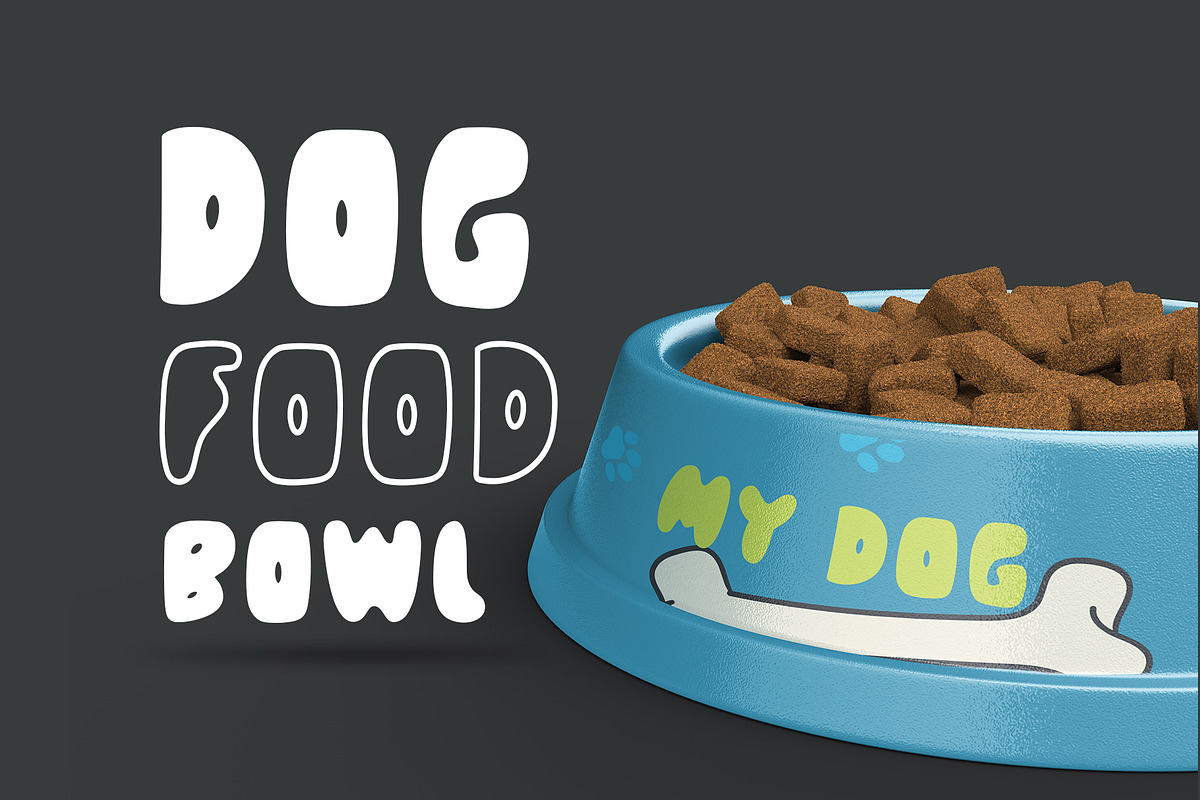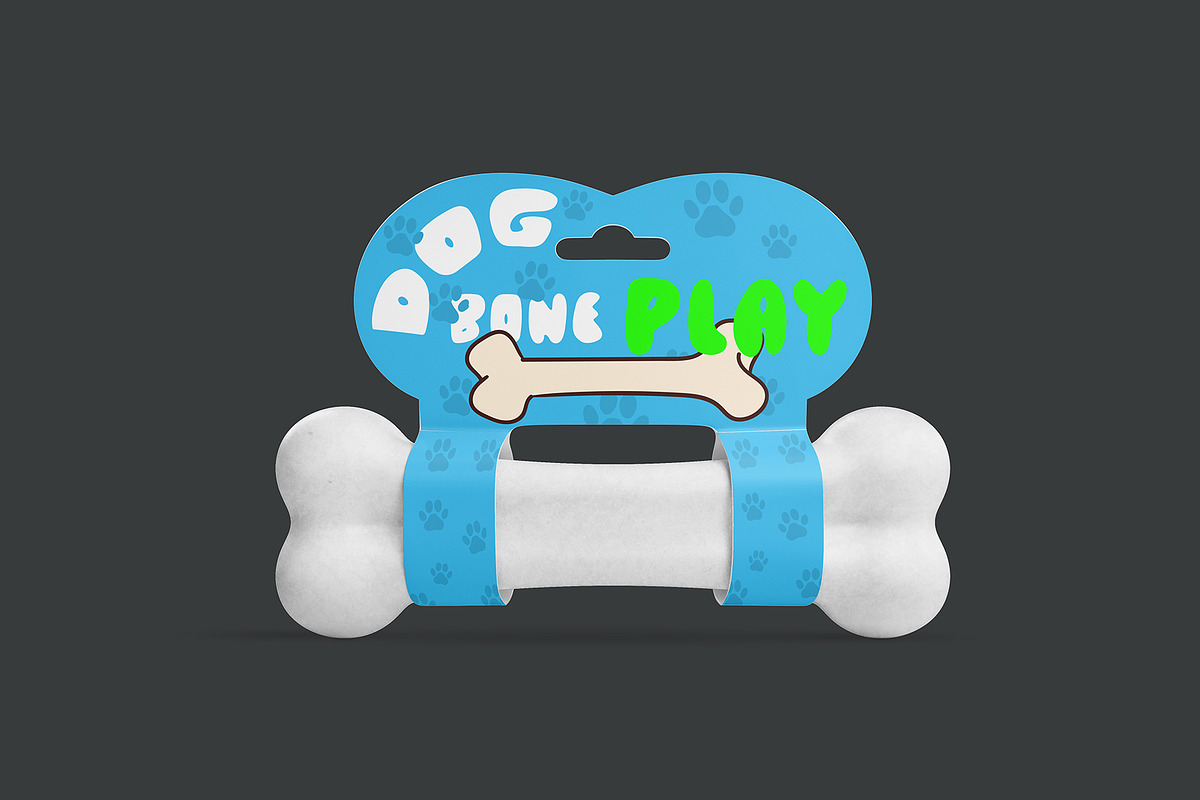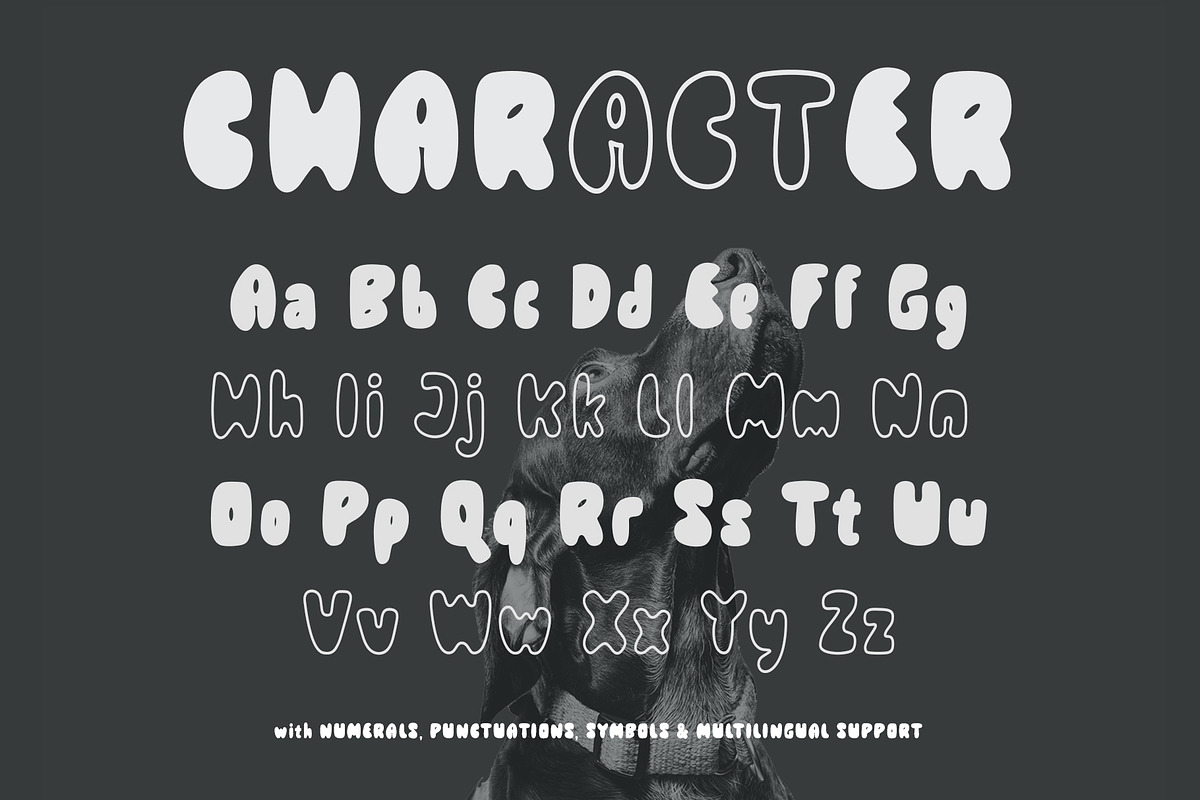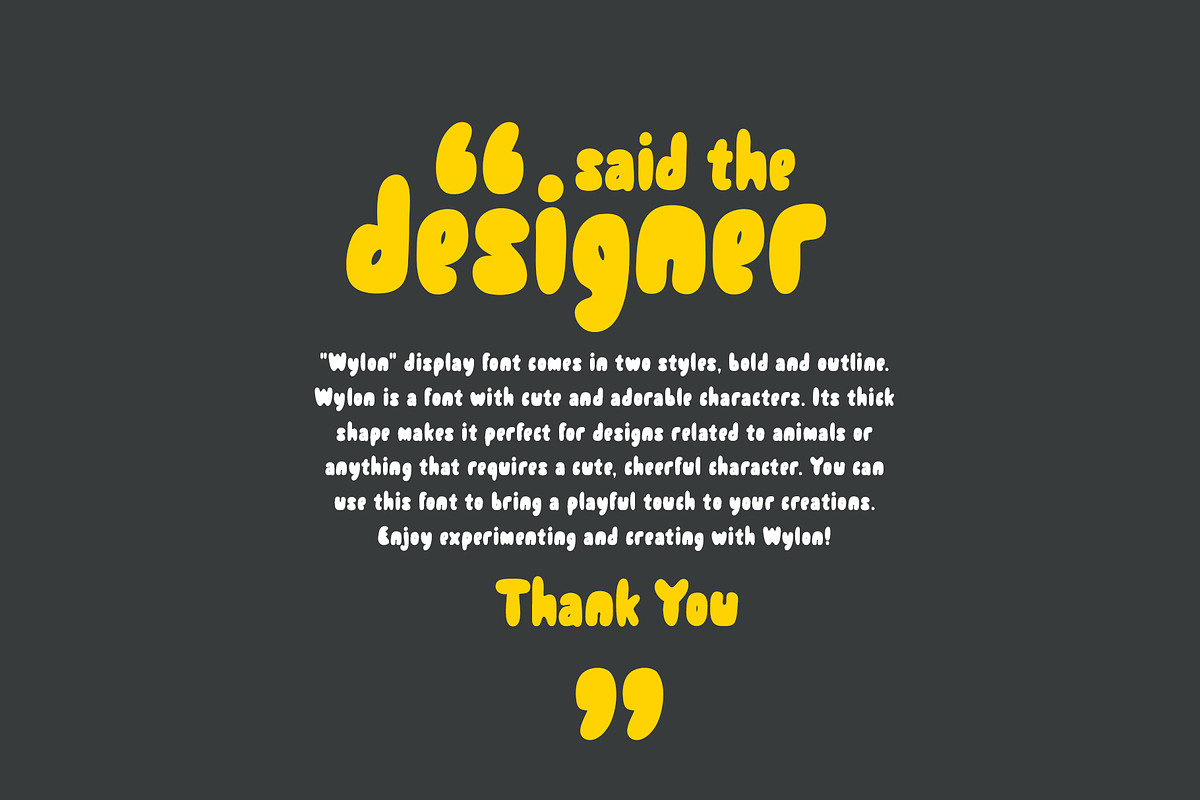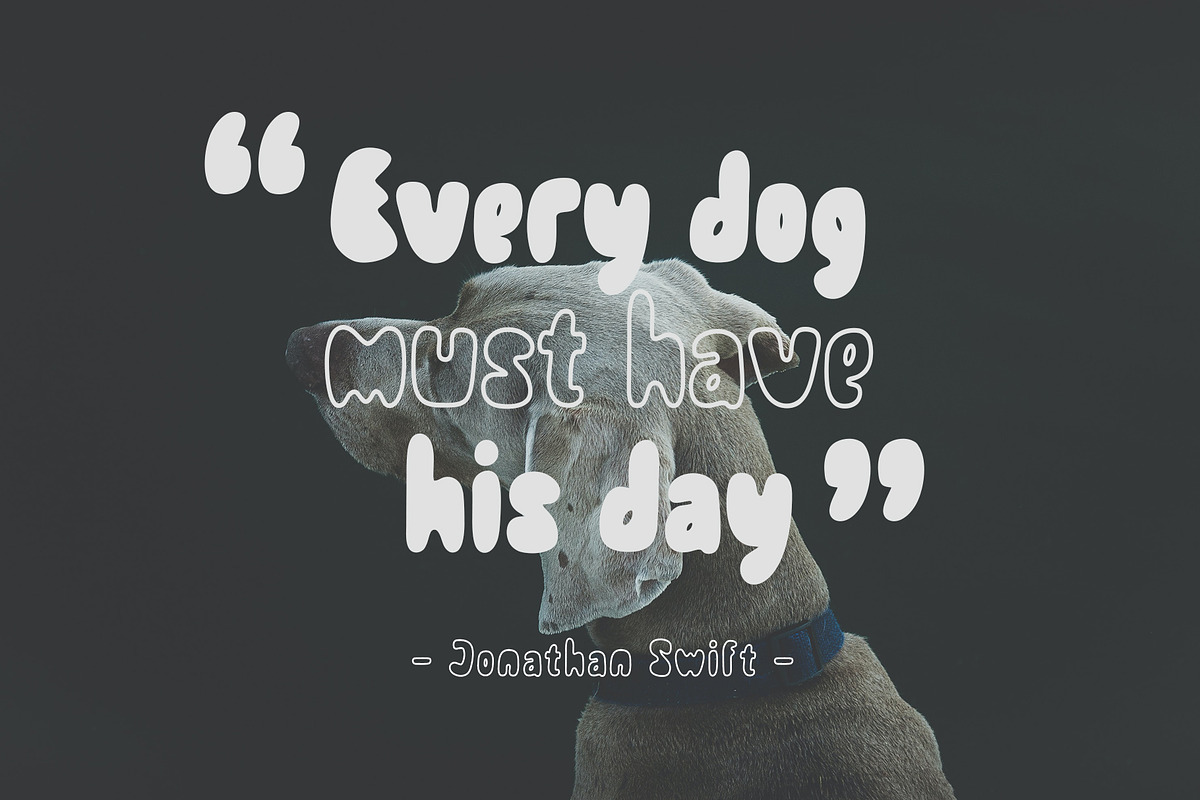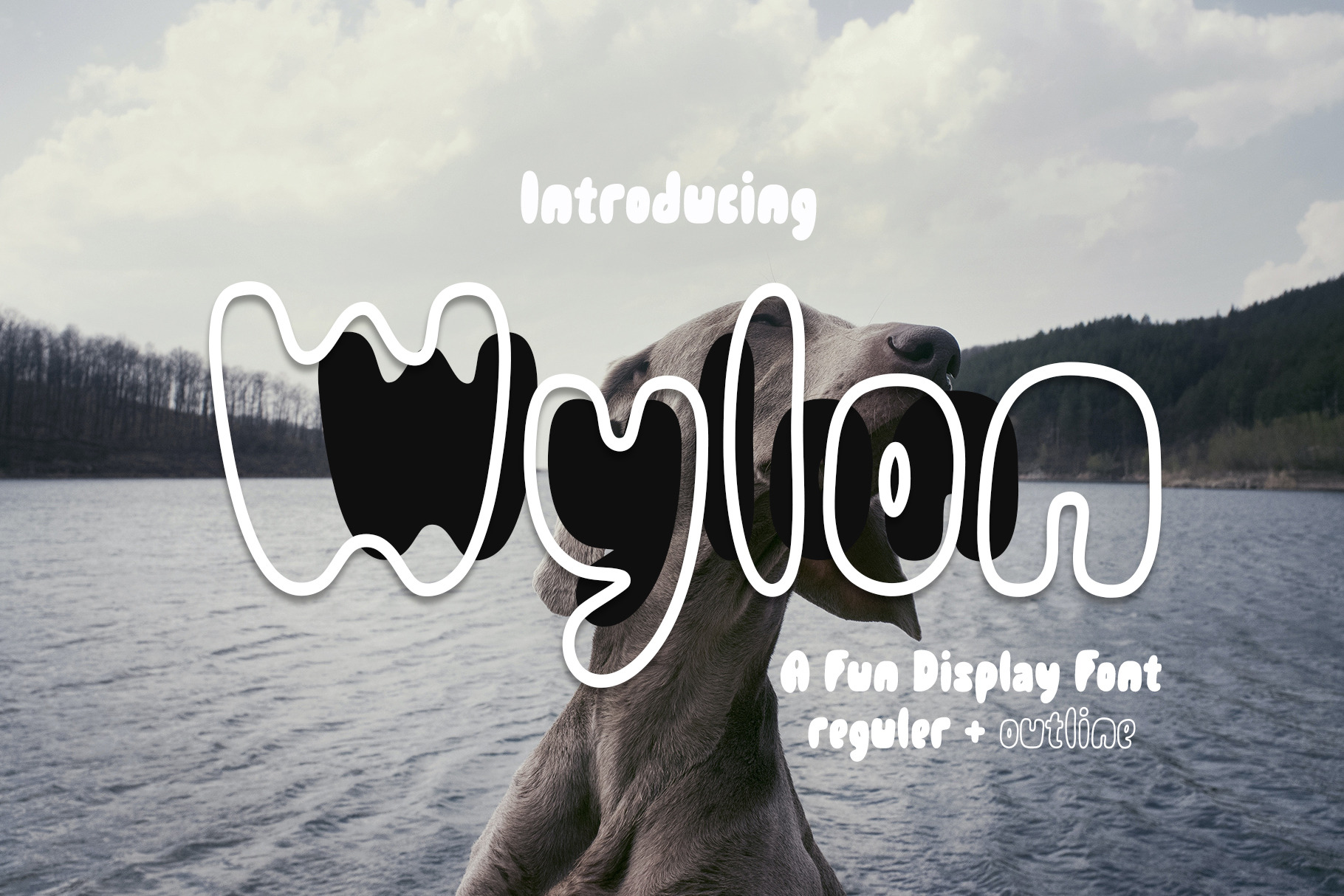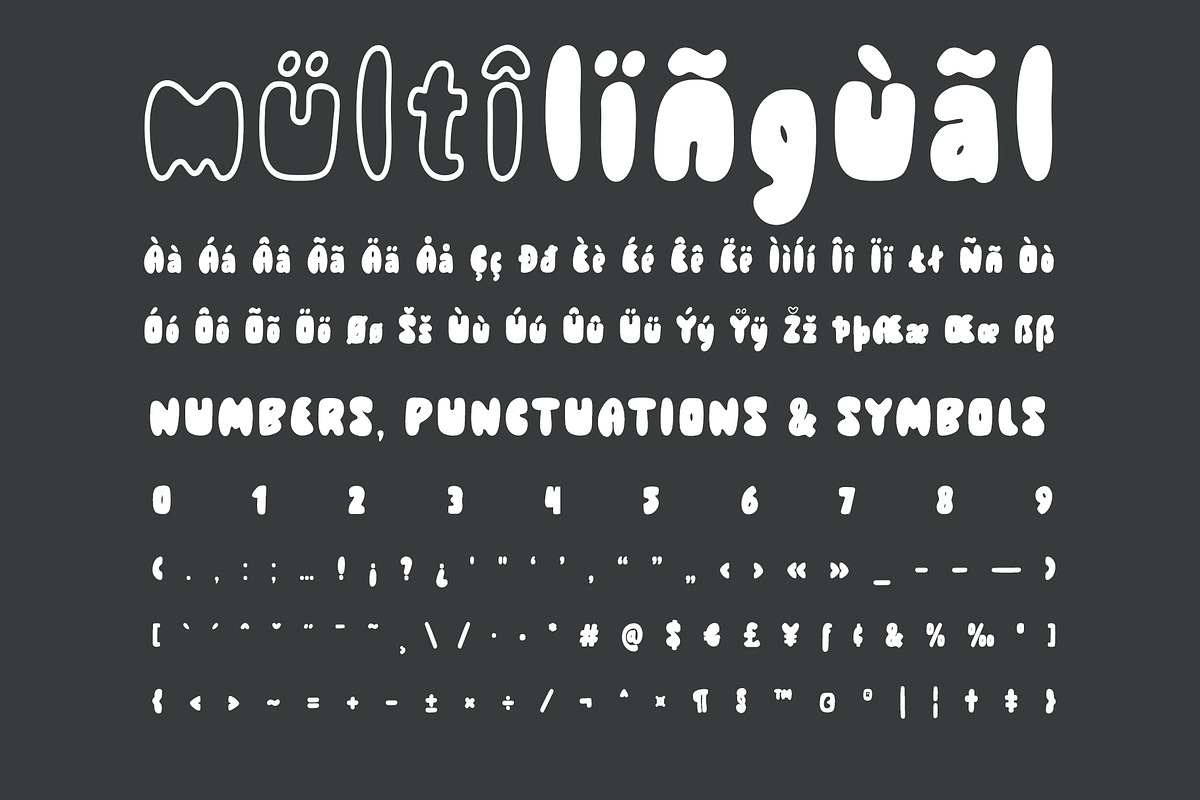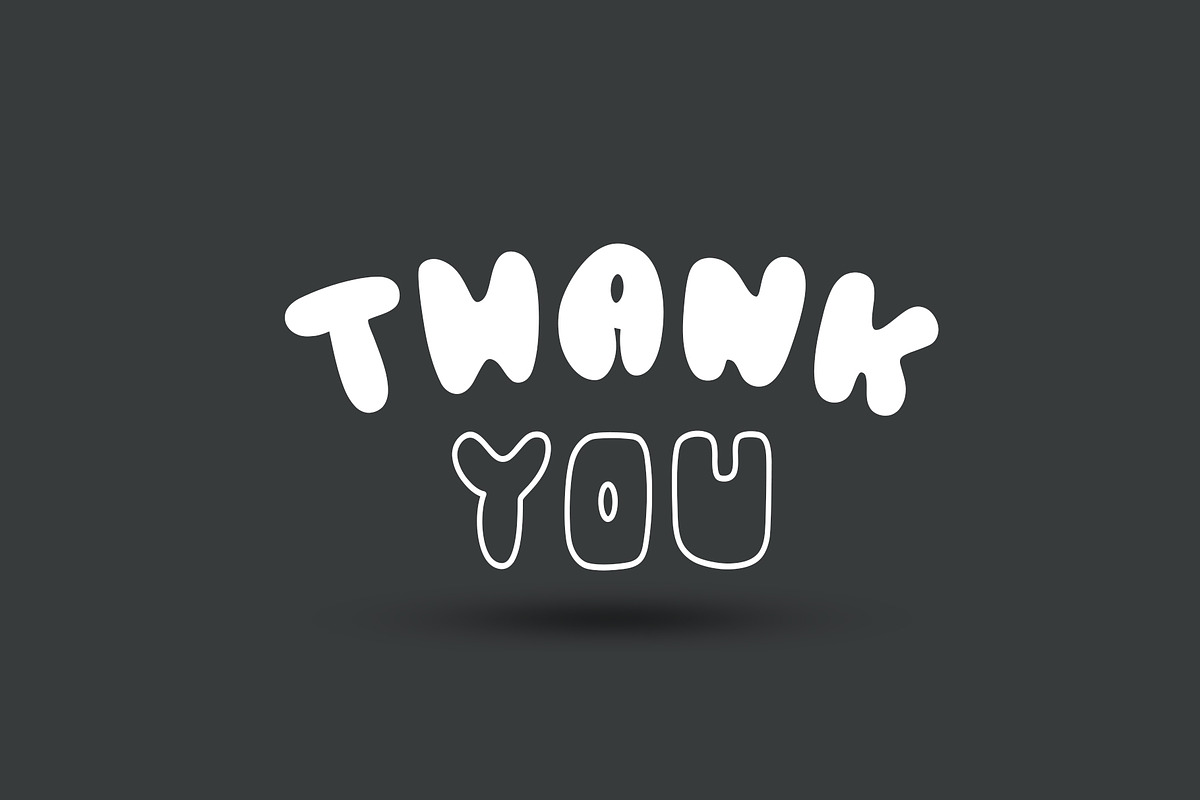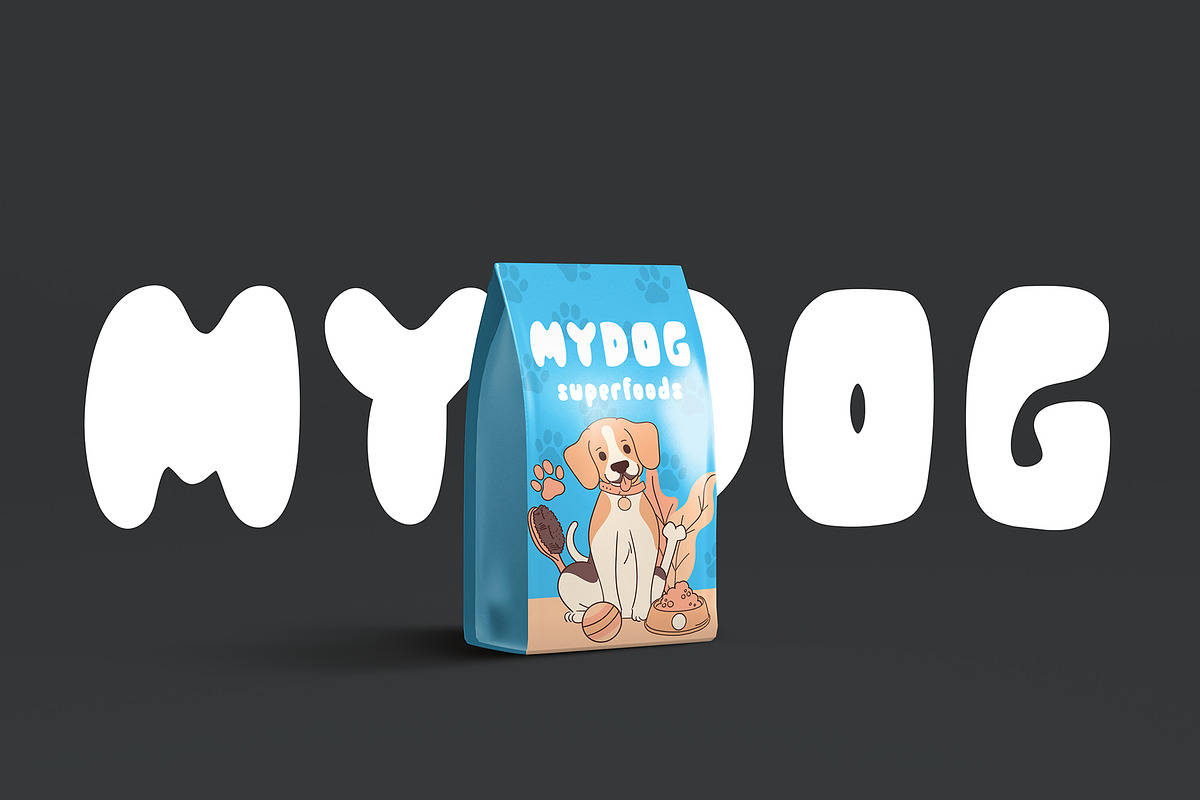
Wylon A Fun Display Font
Wylon is a font that depicts cheerfulness and happiness, inspired by the cuteness of an animal. In its creation process, we drew inspiration from the playfulness and cheerfulness radiated by the behavior and characteristics of animals. An animal can be a source of joy and happiness, and we aim to bring this cheerfulness through the letter designs in the Wylon font.
With a delightful design and a touch of fun, the Wylon font showcases a cute and entertaining side that can bring a smile to readers' faces. The adorable letter shapes and cheerful details in this font create a lively and joyful atmosphere.
As a font inspired by the cheerfulness of animals, Wylon is suitable for various design projects that aim to convey messages of cheerfulness, happiness, and fondness. With its bold style and available outlines, you can customize the use of this font according to your design needs, from colorful posters and cute greeting cards to logo designs that depict the adorable side of a brand.
By using the Wylon font in your designs, you can add a touch of cheerfulness and happiness that invites smiles from anyone who sees it. The cute and cheerful letter designs in this font will bring freshness and joy to every design project, creating an atmosphere of happiness and capturing the hearts of the audience.